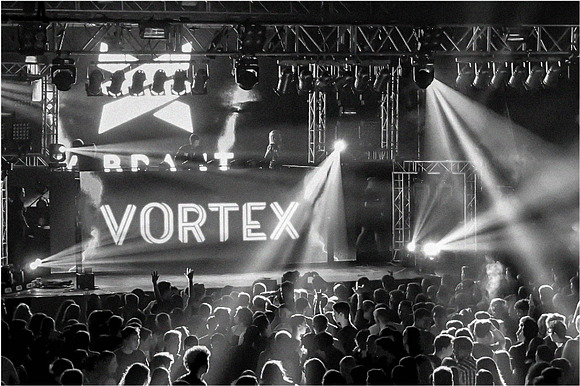
Loophold Font
This font is inspired by the impossible geometry of Escher.
Why Loophold Font is worth a look
Loophold Font by Pedro Azedo fits naturally into Branding, posters, packaging, typography.